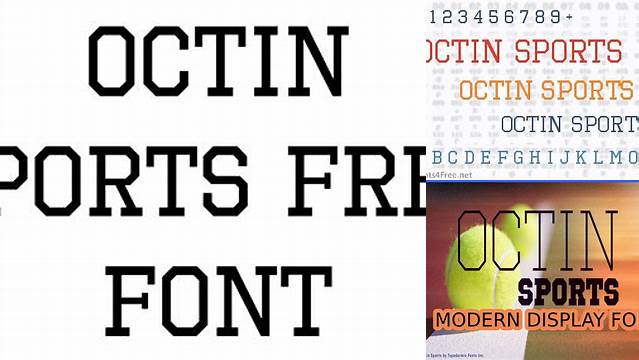
Hey guys! Are you on the hunt for a dynamic and versatile font to spice up your sports-themed designs? Look no further! The Octin Sports font family might just be what you need. In this comprehensive guide, we'll dive deep into what makes Octin Sports so special, where you can find it for free download, and how to best utilize it in your projects. So, buckle up and let's get started!
What is Octin Sports Font Family?
Octin Sports is a modern and athletic font family designed with sports aesthetics in mind. It typically includes various weights and styles, such as regular, bold, italic, and condensed versions, offering a wide range of options for your creative projects. The font is characterized by its strong, clean lines and dynamic letterforms, which evoke a sense of speed, energy, and competition – perfect for sports-related designs. Whether you're designing jerseys, posters, logos, or websites, Octin Sports can add that extra punch to make your visuals stand out. The geometric structure ensures legibility while maintaining a stylish, contemporary feel. It's not just a font; it's a statement. Many designers appreciate its versatility, making it suitable for both headlines and body text in various contexts. Moreover, its distinct character makes it memorable, helping brands establish a strong visual identity. Therefore, if you aim to create designs that resonate with dynamism and athleticism, Octin Sports is an excellent choice to explore. Its robust design ensures that your message is delivered with impact and clarity, capturing the essence of the sporting world.
Key Features of Octin Sports
When you're evaluating a font for your project, it's essential to consider its key features. Octin Sports stands out with several characteristics that make it a go-to choice for designers. First and foremost, its readability is exceptional. Despite its stylized appearance, the font remains clear and legible across various sizes and resolutions, ensuring that your message is easily understood. Secondly, the versatility of Octin Sports is a major advantage. With multiple weights and styles available, you can use it for headlines, subheadings, and body text, maintaining a consistent yet dynamic look throughout your design. Furthermore, the font's athletic aesthetic is perfectly tailored for sports-related projects. Its strong lines and bold letterforms evoke a sense of energy and competition, making it ideal for team logos, sports event posters, and athletic apparel designs. Another notable feature is its modern design. Octin Sports incorporates contemporary design principles, ensuring that your visuals look up-to-date and stylish. It's not just about looking sporty; it's about looking modern and professional. Finally, the availability of different formats (such as OTF and TTF) ensures compatibility with various design software, making it easy to integrate into your workflow. Considering these features, Octin Sports offers a comprehensive package for designers seeking a font that combines style, functionality, and relevance.
How to Use Octin Sports in Your Projects
Okay, so you've got Octin Sports downloaded and ready to go. Now, let's talk about how to use it effectively in your design projects. The key to making any font shine is understanding its strengths and using it in appropriate contexts. Firstly, consider using Octin Sports for headlines and titles. Its bold and impactful letterforms are perfect for grabbing attention and making a statement. Pair it with a cleaner, more legible font for body text to ensure readability. Secondly, think about color combinations. Octin Sports works well with bold, contrasting colors that reflect the energy of sports. Consider using team colors or vibrant hues to enhance the overall design. Thirdly, use Octin Sports in logos and branding materials. Its athletic aesthetic can help convey a sense of strength, speed, and dynamism, making it ideal for sports teams, fitness brands, or athletic apparel companies. However, be mindful of the overall brand identity and ensure that the font aligns with the brand's values and message. Additionally, experiment with different weights and styles within the Octin Sports family. Use bold for emphasis, italic for a sense of movement, and regular for a more subtle touch. Finally, don't be afraid to get creative with typography. Experiment with letter spacing, line height, and text alignment to create visually interesting layouts. By following these tips, you can effectively leverage the power of Octin Sports to create stunning and impactful designs that capture the spirit of sports.
Examples of Effective Octin Sports Usage
To give you some inspiration, let's look at some examples of how Octin Sports can be effectively used in various design projects. Imagine you're designing a poster for a local marathon. Using Octin Sports for the event title immediately conveys a sense of energy and excitement. Pair it with dynamic imagery of runners in motion and vibrant colors to create a visually compelling poster that grabs attention. Another example could be creating a logo for a sports team. Octin Sports' strong and bold letterforms are perfect for symbolizing strength and unity. Customize the font with unique elements, such as stylized lines or geometric shapes, to create a memorable and distinctive logo. Furthermore, think about designing a website for a fitness brand. Use Octin Sports for headlines and calls to action to create a sense of urgency and motivation. Incorporate high-quality images of people working out and use a clean, modern layout to create a professional and engaging online experience. In addition, Octin Sports can be used effectively in athletic apparel designs. Use the font to create bold and impactful graphics on t-shirts, hoodies, and other sportswear items. Consider using contrasting colors and creative typography to make the designs stand out. These examples demonstrate the versatility of Octin Sports and its ability to enhance a wide range of design projects. By understanding its strengths and using it creatively, you can create visuals that resonate with your target audience and achieve your design goals.
Tips and Tricks for Optimizing Octin Sports in Your Designs
To really make Octin Sports shine in your designs, here are some handy tips and tricks to optimize its usage. First off, kerning is key. Pay close attention to the spacing between letters to ensure readability and visual harmony. Adjust the kerning manually to create a more balanced and polished look. Secondly, contrast is your friend. Pair Octin Sports with a contrasting font for body text to create visual interest and hierarchy. A clean, sans-serif font like Open Sans or Lato works well. Thirdly, use whitespace effectively. Give your typography room to breathe by incorporating plenty of whitespace around text elements. This will help to create a clean and uncluttered design. Additionally, experiment with layering and masking. Use Octin Sports as a mask for images or create layered text effects to add depth and dimension to your designs. Furthermore, consider the context. Tailor your font usage to the specific project and audience. Use bolder styles for impactful headlines and more subtle styles for body text. Finally, always test your designs. Preview your designs on different devices and screen sizes to ensure that the typography looks good and is legible. By following these tips and tricks, you can optimize Octin Sports in your designs and create visually stunning and effective visuals.
Common Mistakes to Avoid When Using Octin Sports
Even with a great font like Octin Sports, it's easy to make mistakes that can detract from your designs. Let's go over some common pitfalls to avoid. First and foremost, overusing the font. While Octin Sports is versatile, using it for every single text element in your design can be overwhelming and monotonous. Use it sparingly and strategically to create emphasis and visual interest. Secondly, ignoring readability. While Octin Sports is generally legible, using it in very small sizes or with poor color contrast can make it difficult to read. Always prioritize readability to ensure that your message is clear and accessible. Thirdly, inconsistent styling. Mixing different weights and styles of Octin Sports without a clear hierarchy can create a chaotic and unprofessional look. Establish a consistent typographic system and stick to it throughout your design. Additionally, poor color choices. Pairing Octin Sports with colors that clash or don't provide enough contrast can make the text difficult to read and detract from the overall design. Choose colors carefully and test them to ensure they work well together. Furthermore, neglecting whitespace. Cramming too much text into a small space or failing to provide adequate whitespace around text elements can make your designs look cluttered and overwhelming. Give your typography room to breathe. Finally, failing to test your designs. Not previewing your designs on different devices or screen sizes can result in unexpected rendering issues. Always test your designs thoroughly to ensure they look good across all platforms. By avoiding these common mistakes, you can use Octin Sports effectively and create professional-looking designs.
In conclusion, the Octin Sports font family is a fantastic resource for designers looking to add a touch of athleticism and modernity to their projects. By understanding its key features, knowing where to find it for free download, and following the tips and tricks outlined in this guide, you can effectively leverage Octin Sports to create stunning and impactful designs. Remember to always prioritize readability, consistency, and visual harmony to ensure that your typography enhances your overall design. So go ahead, download Octin Sports, and start creating amazing visuals that capture the spirit of sports! Have fun designing, guys!